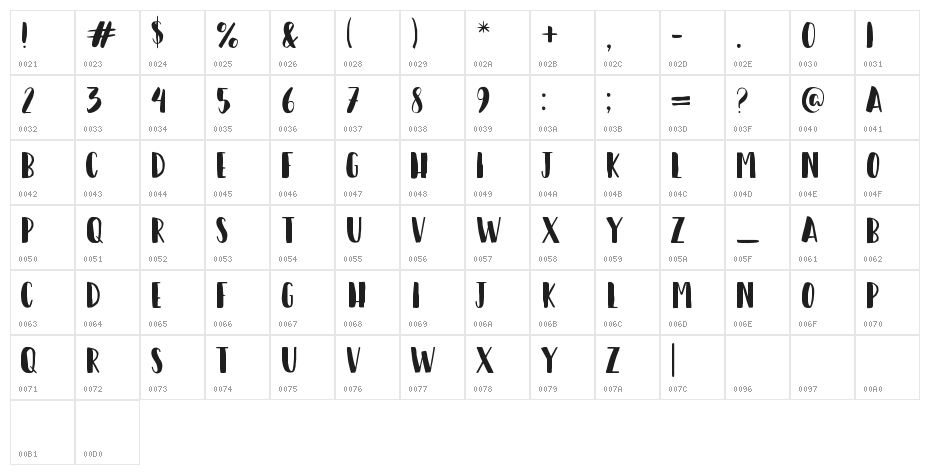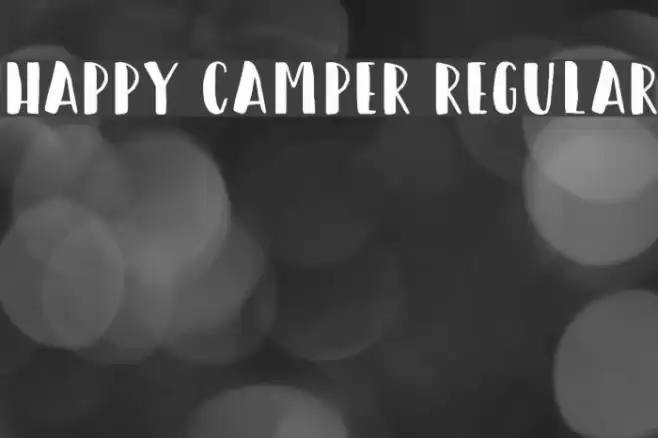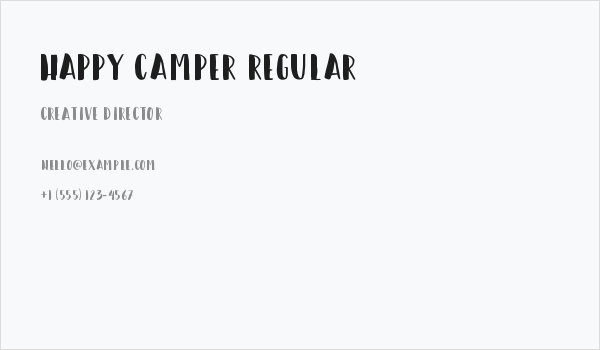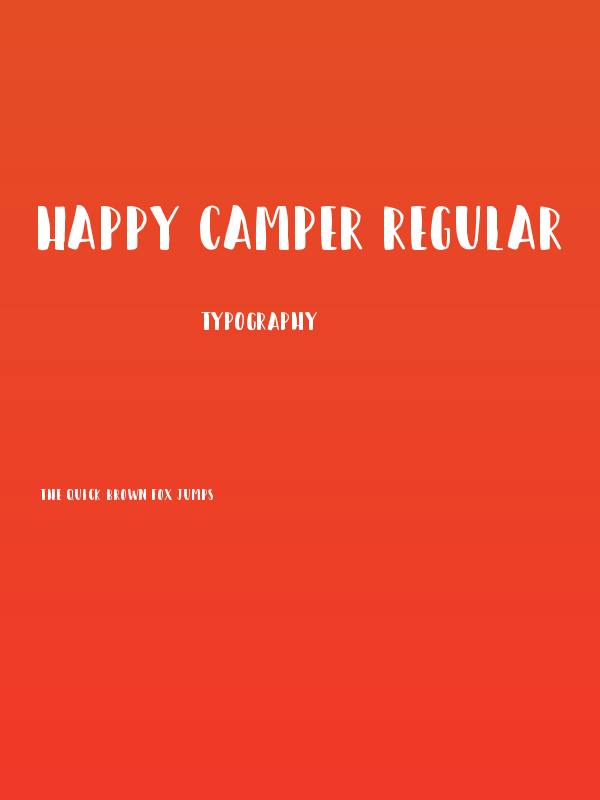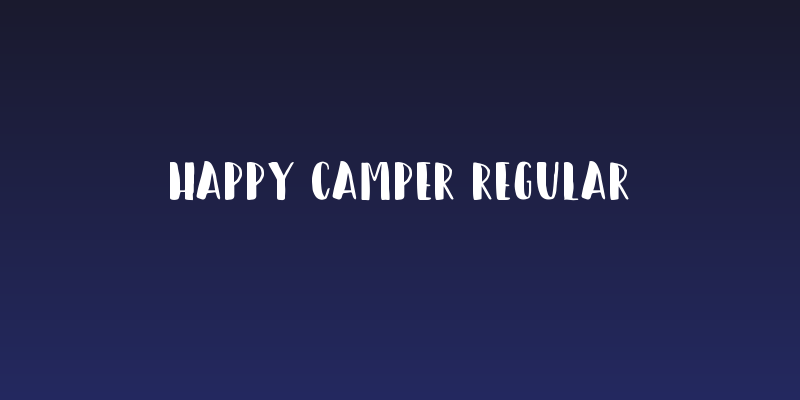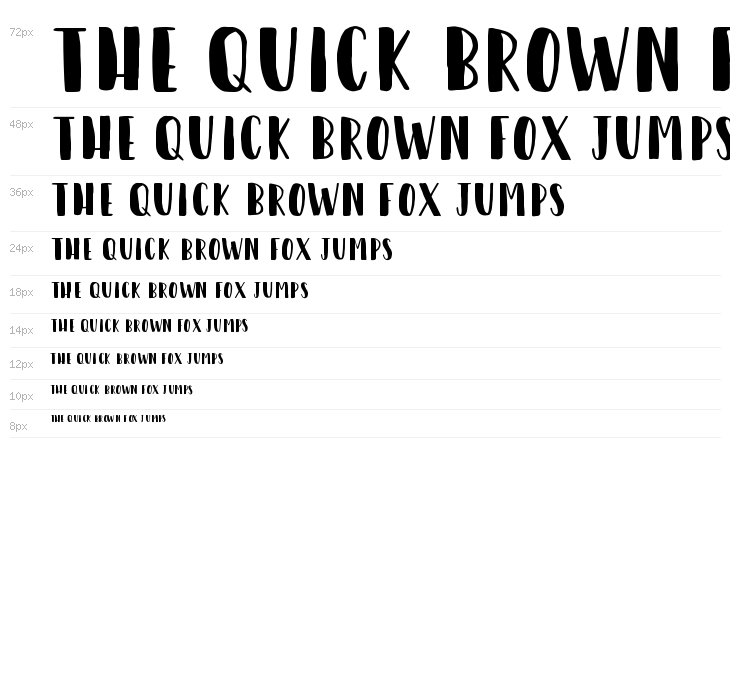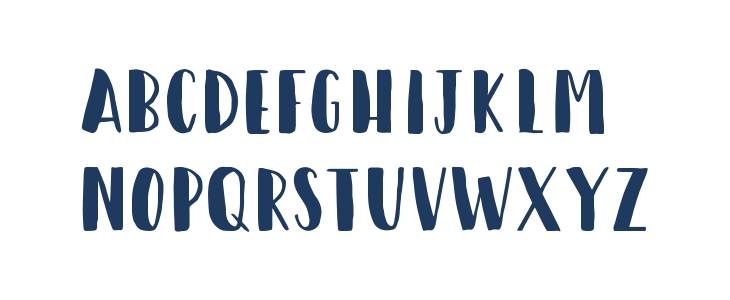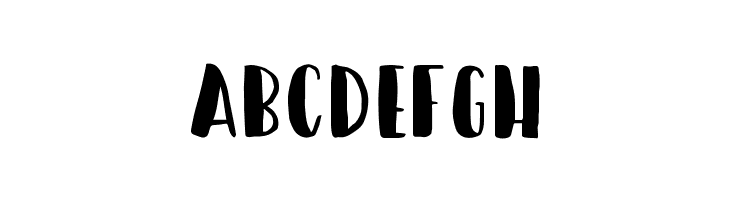
Happy Camper Regular Font
Happy Camper Regular Description
This font features a playful and bold handwritten style, characterized by its thick strokes and slightly irregular shapes, giving it a casual and friendly appearance. The uppercase letters are prominent and slightly condensed, while the lowercase letters maintain a consistent flow with a touch of whimsy. The numbers and special characters complement the overall style, adding to its versatility. This font is perfect for projects that require a fun and approachable aesthetic, such as children's books, posters, or branding for creative businesses.
| Proposed Projects | Ideal for children's books, playful posters, creative branding, and casual invitations. |